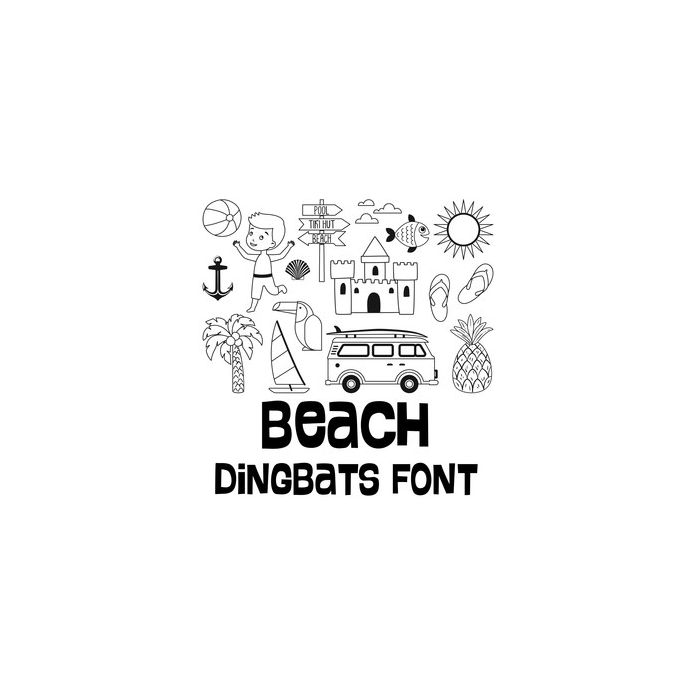
This cute dingbat font includes 26 beach icons that you can type + cut. Make adorable beach themed projects with this fun font. For ideas and inspiration visit Lori's blog and facebook page. For Lori's video tutorials visit Lori's YouTube Channel.